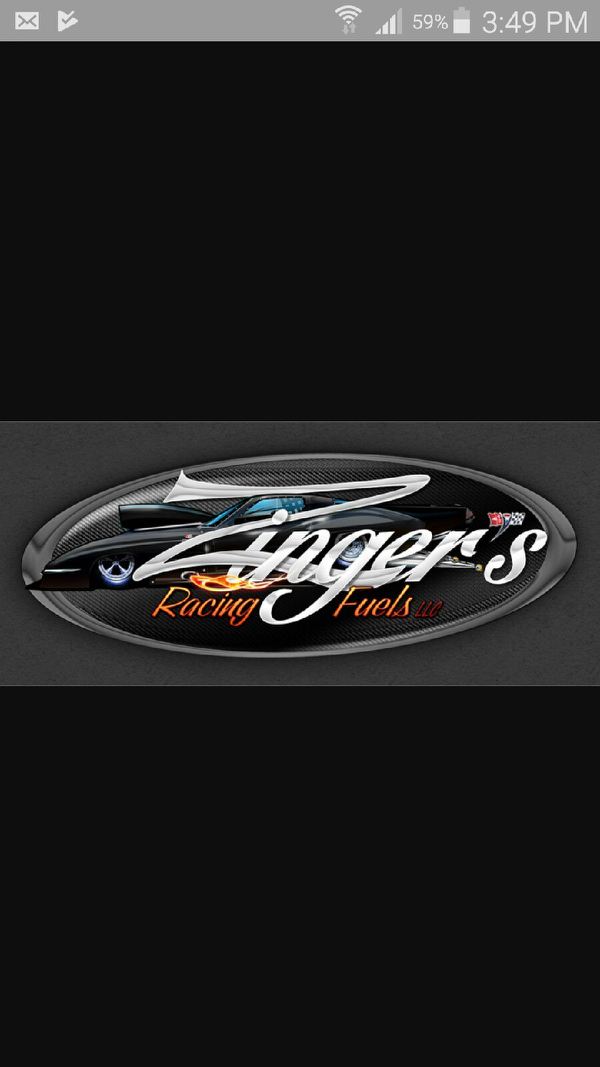
From a client. Wants the font used in this logo…any help appreciated.
“ingers” is Snell Roundhand that has been slanted an extra few degrees. The Z is not Snell and was probably manually designed. “Racing Fuels” looks like one of the many brush-style scripts that were popular in the 50s and 60s. Here is a sample of a similar font from a 1972 VGC Typositor catalog. Font Bros has lost of script fonts of this ilk.